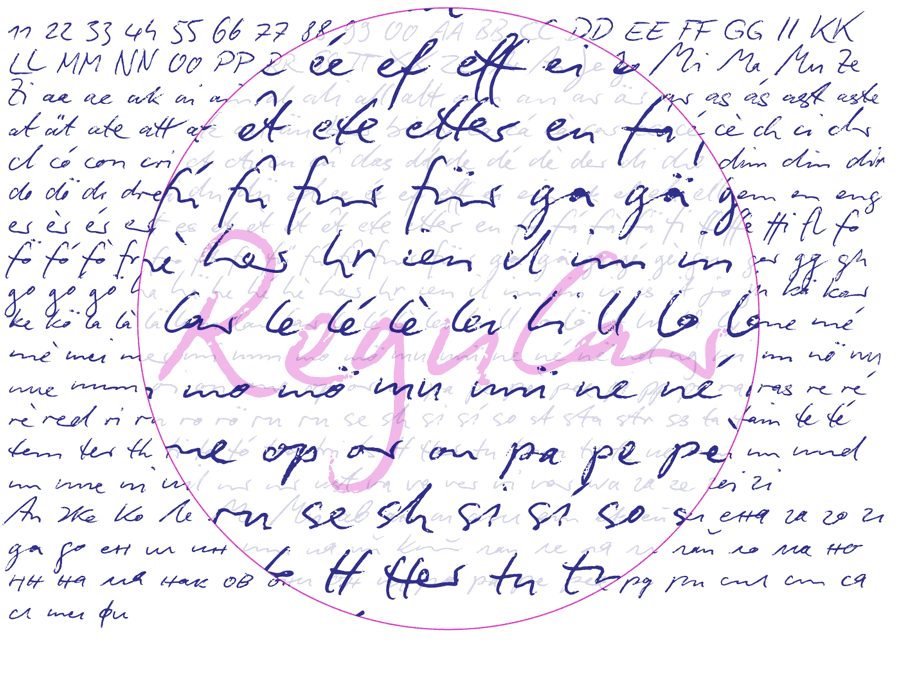
An authentic script from the tip of the ball point pen
This hasn’t been seen yet: A typeface which truly looks as if it were handwritten. Calligraphy is, actually, the art of fine writing…
…and actually, written scripts as typeface for the computer are 100% nonsense.
And yet, an obvious thought: Create a typeface which truly derives from everyday handwriting. And since we, if we write at all, utilize practically only a ball point pen anymore, then a modern cursive writing form must look like just that.
As a counterpart to the artistic ”handwritings“ which have long been available as typeface, the thought of digitalizing a truly ”ugly“ handwriting is appealing. After all, time and again there is the need for a text to look ”handwritten,“.
Biró Script is written freehand with a ball point pen. Does Biró Script look dead? No, on the contrary! Finally a truly individual script!
Biró Script includes more than 300 authentic ligatures in addition to the customary alphabet.
And the OpenType-Technique makes it possible: The ligatures appear automatically like magic when entering the text.
For example, when you enter the word alphabet the program substitutes the letter order a l, h a and e t with the corresponding letter combinations al, ha and et. So, the form of the single character seldom repeats itself since it is mostly replaced with a ligature; and, with each combination of characters the result is a slightly different form of the individual character.
Type set in Biró Script appears remarkably similar to a text actually handwritten with a ball point pen.
By the way, the most convincing effect is obtained with a font size of about 18 to 22 points, at which the thickness of the stroke is now about the same as that of a real ball point pen.